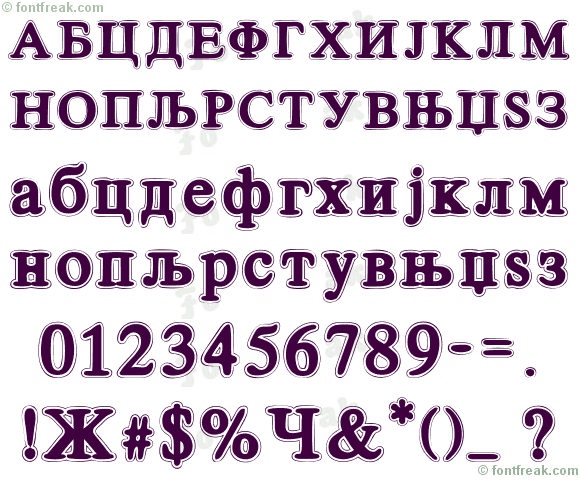
Cirilico Font
About Cirilico Font
Cirilico Font, designed by woodcutter Manero, is a striking display typeface that captures attention with its unique visual appeal. This font features bold, serif characteristics that are accentuated by a slightly uneven stroke weight, giving it a handcrafted, rustic feel. The letters are well-spaced, allowing for optimal readability while maintaining a decorative flair. The subtle contrast in stroke thickness adds depth, making Cirilico Font not only functional but also visually engaging.
This font is particularly well-suited for various creative applications. It shines in wedding invitations, where its distinctive style can evoke a sense of elegance and personalization. Movie posters benefit from its bold presence, helping to convey the drama or theme of the film effectively. Restaurant menus can leverage Cirilico Font to create an inviting atmosphere, appealing to patrons with its artistic flair. Additionally, it serves as an excellent choice for branding materials, giving small business owners the opportunity to stand out in a crowded market.
What sets Cirilico Font apart is its ability to blend functionality with artistic expression. It stands out not just for its aesthetic qualities but also for the versatility it offers across various design contexts. For anyone seeking a visually compelling typeface, Cirilico Font font free download is an opportunity to elevate your creative work while capturing the essence of craftsmanship. Explore the potential of this captivating font and let your designs speak volumes.